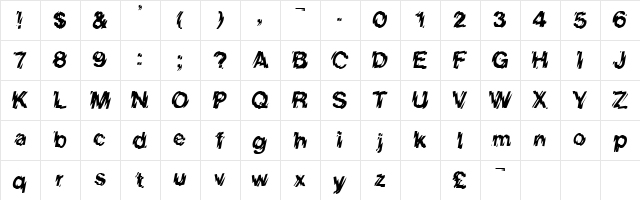
Slowride 2 Regular
Design Context for Slowride 2 Typeface
Slowride 2 is a composed and adaptable typeface that performs quietly and consistently across a wide range of design contexts.